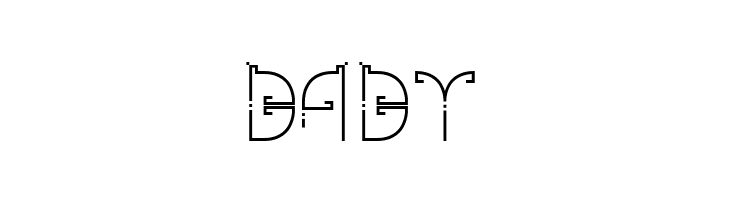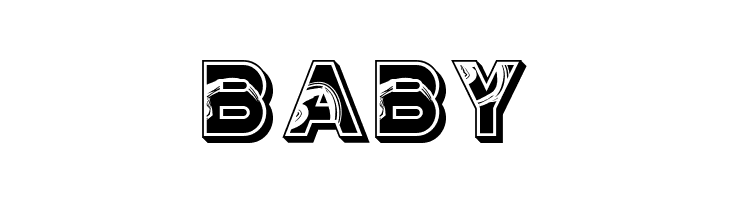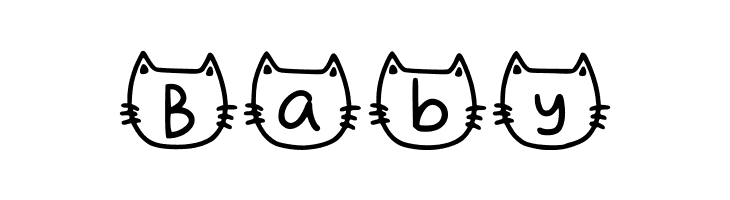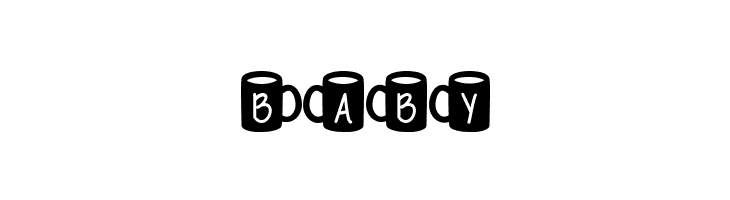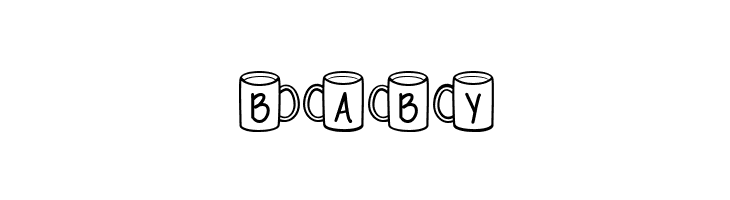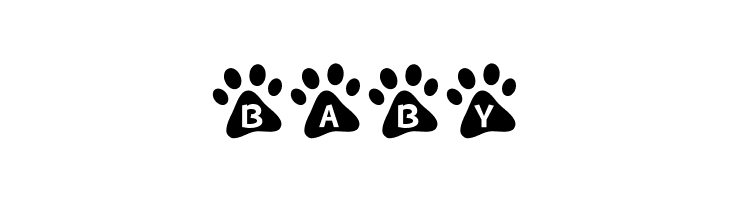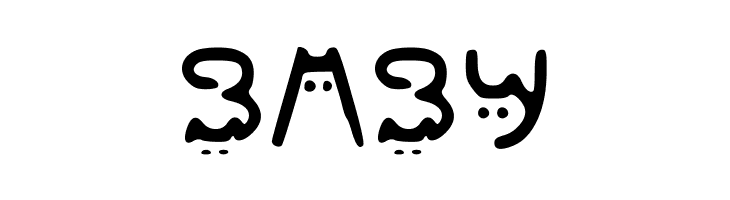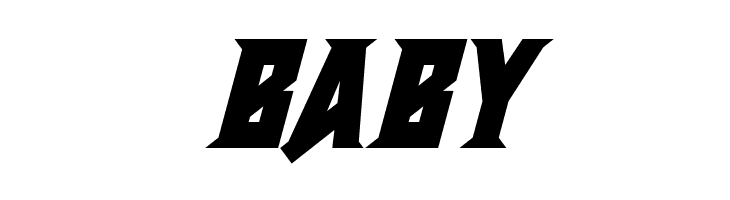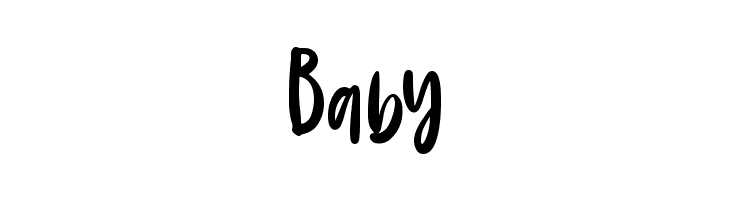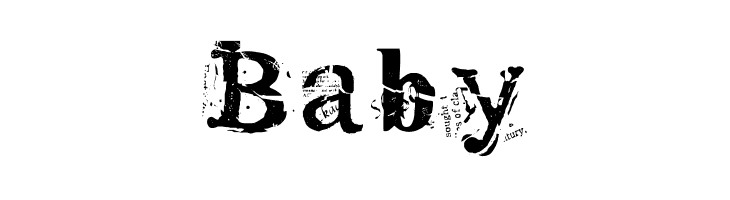
A playful font with characters enclosed in cat face outlines, ideal for fun and whimsical projects.
A playful font with cat-like faces on each character, perfect for creative projects.
A bold, textured font with intricate patterns and a striking, artistic style.
A bold, textured font with a dynamic, brush-like appearance.
A bold, decorative font with a mechanical, industrial design featuring dotted patterns.
A bold, decorative font with American flag motifs, featuring stars and stripes.
An elegant serif font with refined strokes and balanced proportions.
A bold, decorative font with a three-dimensional effect and intricate patterns.
A whimsical, ornamented font perfect for festive occasions.
A hand-drawn, textured font with a mesh-like appearance, offering a playful and artistic style.
A clean, modern font with balanced spacing and clear characters.
A bold, modern font with an industrial and robust design.
A bold, angular, italic font with a dynamic and aggressive style.
A bold, decorative font with a metallic, patterned design.
A bold, grunge-style font with a distressed, hand-drawn appearance.
A bold, decorative font with diagonal stripes across each character.
A bold, futuristic font with geometric and abstract elements.
A bold, angular font with a geometric and industrial design.
A dynamic and expressive handwritten font with fluid, flowing letterforms.
Intricate and bold motifs inspired by traditional Mexican art, featuring detailed cultural symbols.
A playful font with characters inside coffee mug outlines, perfect for creative projects.
A playful font with characters inside coffee mugs, perfect for beverage-themed designs.
A playful font with characters inside paw prints, perfect for animal-themed designs.
A bold, artistic display font with unique geometric and decorative elements.